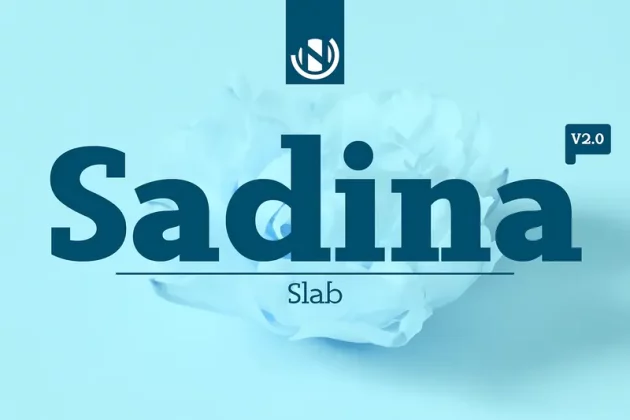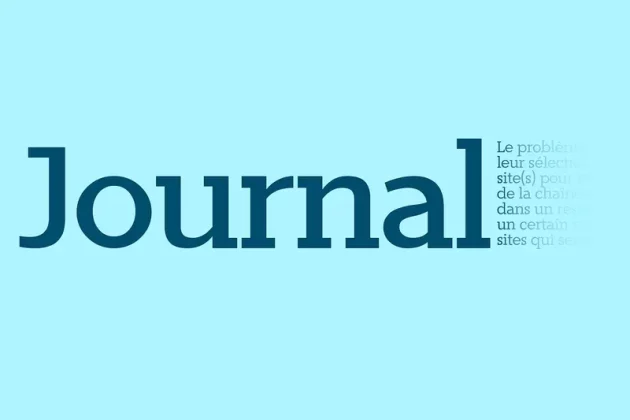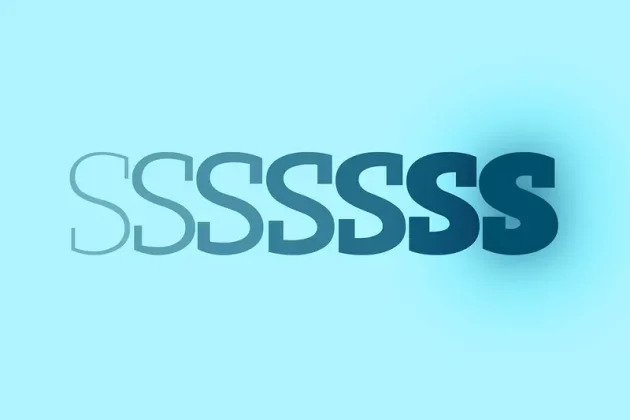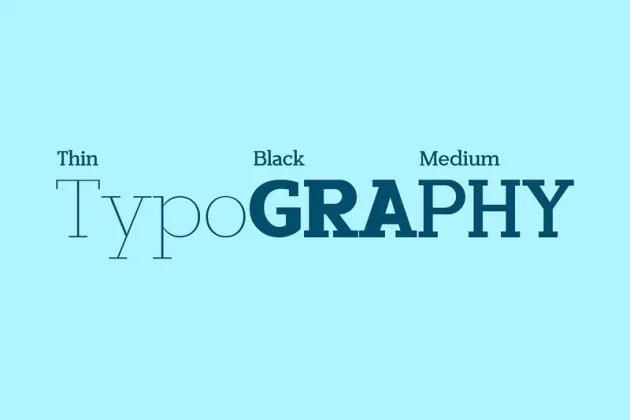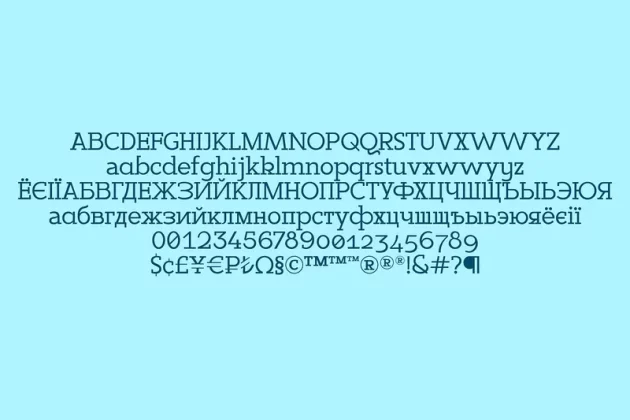
About Sadina Slab Font
Sadina Slab is a versatile geometric slab serif font inspired by the Sadina typeface family. It blends classic sensibilities with modern design principles, creating a visually appealing and legible typeface suitable for various applications. The font’s square serifs and geometric structure lend a contemporary feel while maintaining readability for extended text passages. Available in 14 styles spanning seven weights, Sadina Slab caters to diverse design needs, from website typography to packaging and branding materials. Its multilingual support (including Western European Latin and Cyrillic scripts) further enhances its versatility.